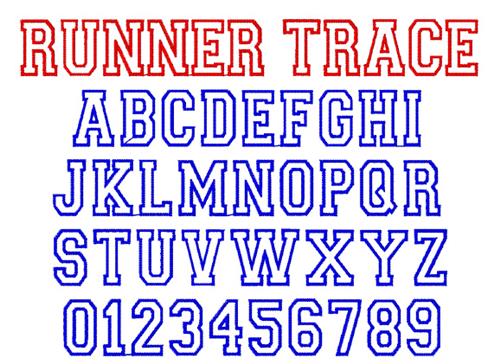
Internet Stitch is happy to present RunTrace machine embroidery font which has Bold block letters in a striking red, this machine embroidery font showcases 'RUNNER TRACE', perfect for athletic gear and accessories. Available in ELP format for versatile stitching applications. included. If you would like to view more embroidery fonts and alphabets please search our embroidery fonts page.